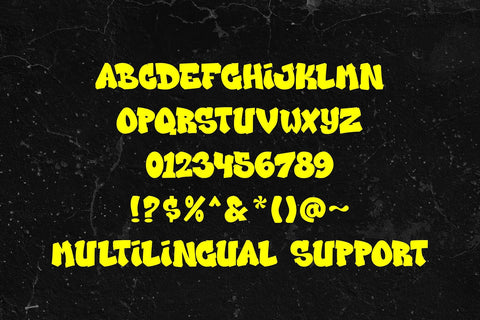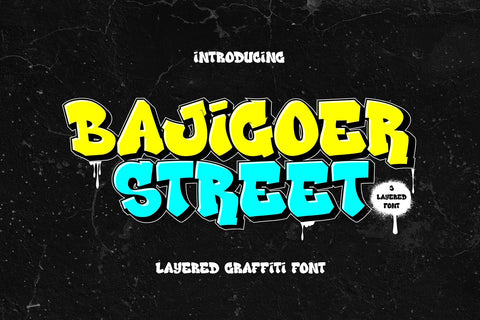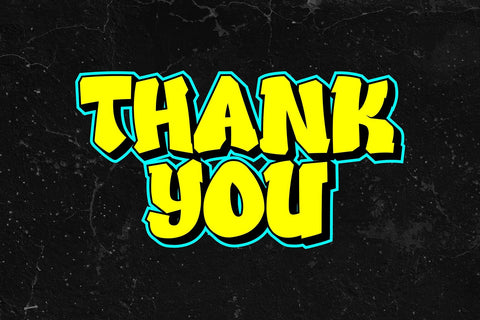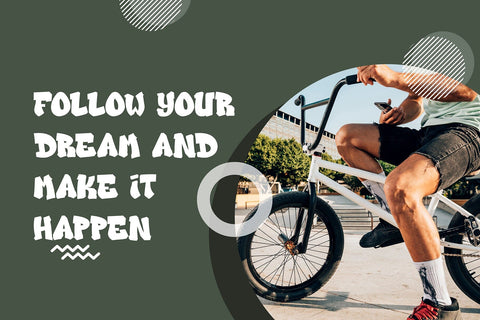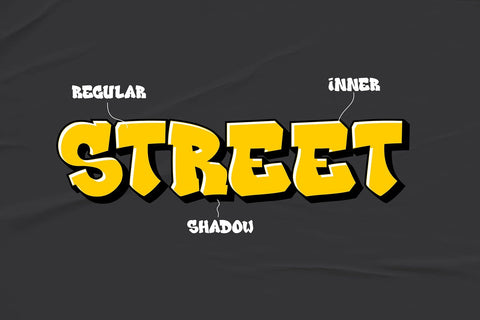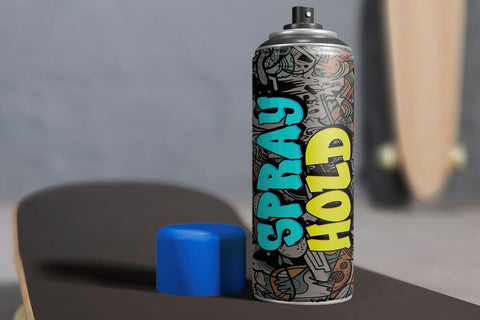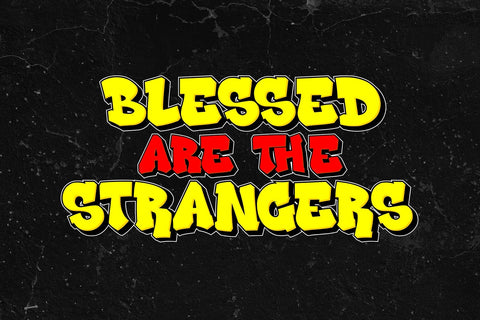
Bajigoer Street - 3d Layered Graffiti Font
"Bajigoer Street" is a 3D layered graffiti font featuring solid, inner shadow, and outer shadow styles. This font provides a multi-dimensional effect to text, allowing you to create impactful and visually dynamic designs. The solid style gives a bold and straightforward appearance, while the inner shadow and outer shadow styles add depth, creating a three-dimensional and shadowed effect. "Bajigoer Street" is well-suited for graffiti-inspired projects, posters, or any design where a bold and layered typographic style is desired.
- Graffiti Characters looks